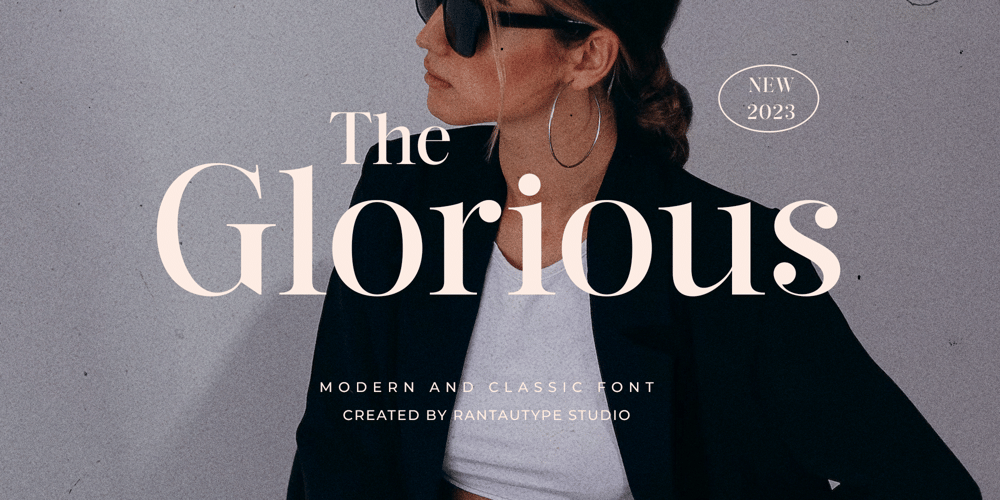
The Glorious Font Family was designed by Yudi Pratama Chandra and published by RantauType. The Glorious contains 2 styles and family package options. The Glorious is a beautiful upper and lower modern or nostalgic serif – with a complementary italic version. The alternate can make to classic or stay on modern. it’s to good to make variant on your work. I’ve also love combination the reguler and italic make cool and nostalgic.The Glorious is a perfect choice for any creative endeavor, chic, lifestyle design such as logos, advertisements, watermark on photography, stationery, branding project, display and magazine, invitation, corporate brand, product design, label, business project and many other project need elegant taste.Features Standar letter A-Z and a-z Numberial and Functional Alternate and ligature Works on PC & Mac Simple installations Accessible in Adobe Illustrator, Adobe Photoshop, Adobe InDesign, even work on Microsoft Word. Language Support : English, French, Friulian, Galician, German (Switzerland), Irish, Italian, Low German, Luo, Luxembourgish, Norwegian Bokmål, Norwegian Nynorsk, Portuguese, Romansh, Swedish, Swiss German.aThank you for your purchase!Hope you enjoy with our font!